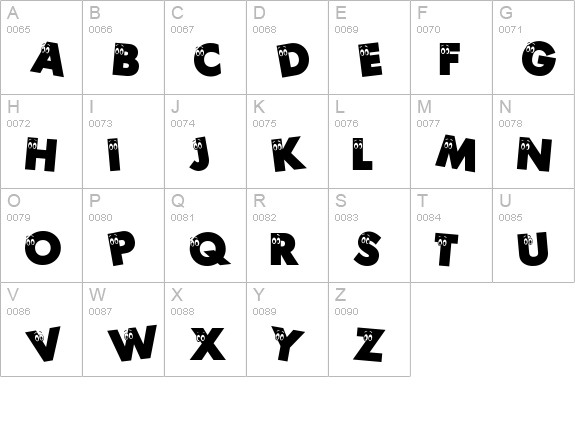
Peeps Font Details
Peeps font is a delightful and playful typeface that embodies the spirit of joy and fun. With its charming and rounded letterforms, Peeps font adds a touch of whimsy to any design project. Whether you're creating a greeting card, a children's book, or a playful logo, this font will bring a smile to your audience's face. What makes Peeps font even more appealing is that it is free! You read that right, this fantastic typeface is freely available to download at FontsMarket.com. Now you can add a touch of playfulness to your designs without having to worry about breaking the bank. The versatility of Peeps font is another reason to love it. It works seamlessly in both digital and print mediums, allowing you to use it in a wide range of projects. Its legibility and readability ensure that your message is conveyed with clarity, while its unique personality adds a touch of character. Whether you're a professional designer or a creative enthusiast, Peeps font is a must-have in your font collection. Its free availability and charming design make it a valuable asset for anyone looking to infuse their designs with a sense of joy and whimsy. So why wait? Head to FontsMarket.com and download Peeps font today!